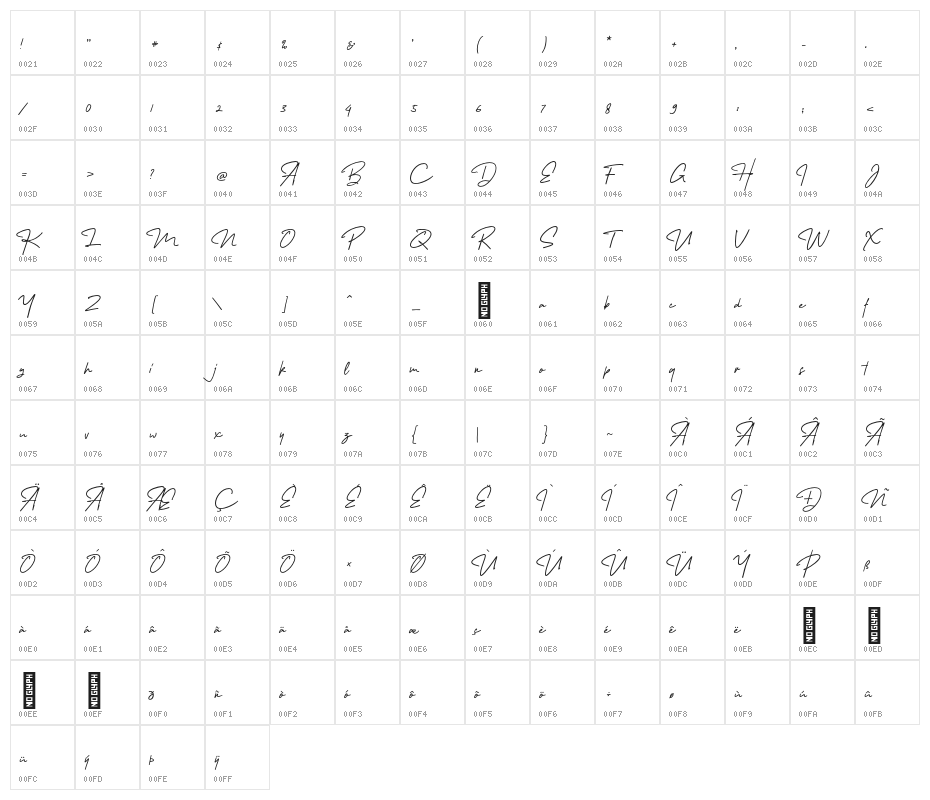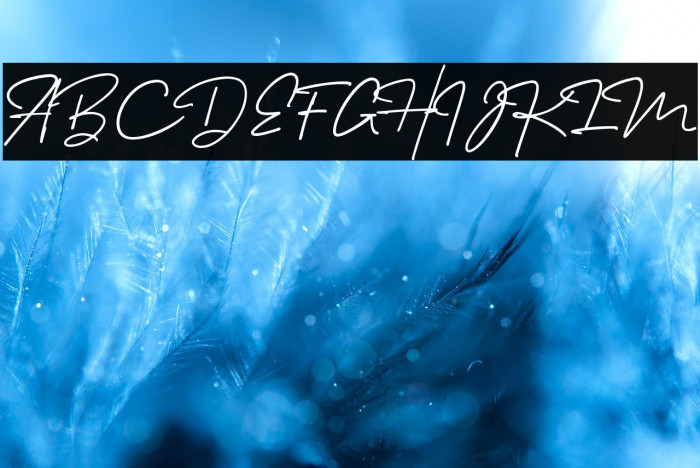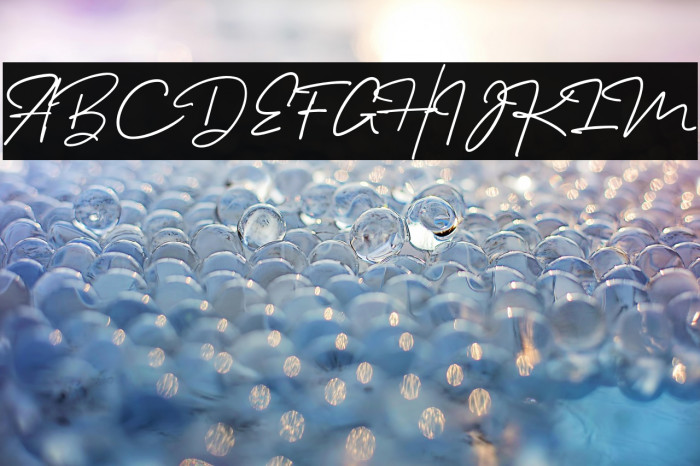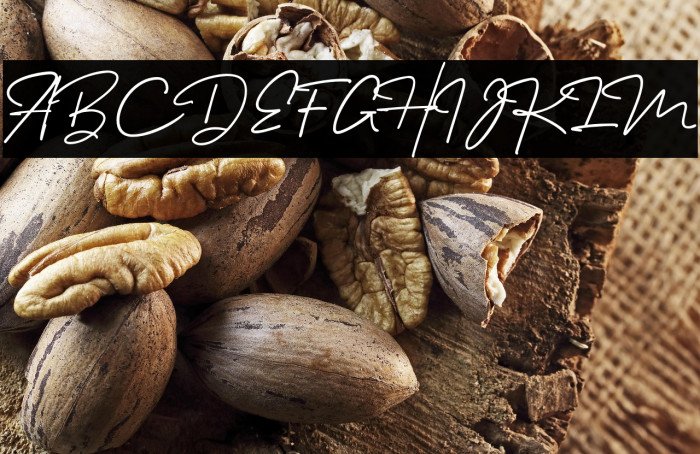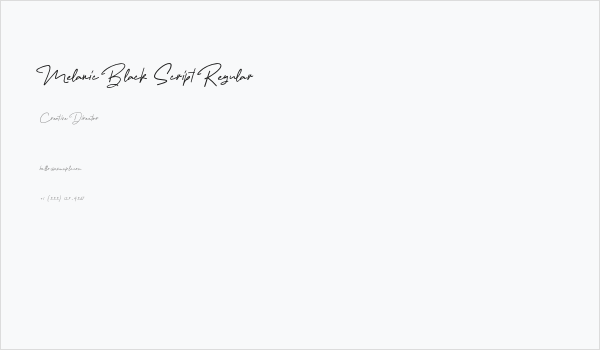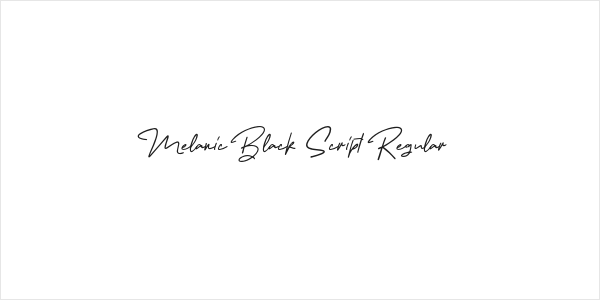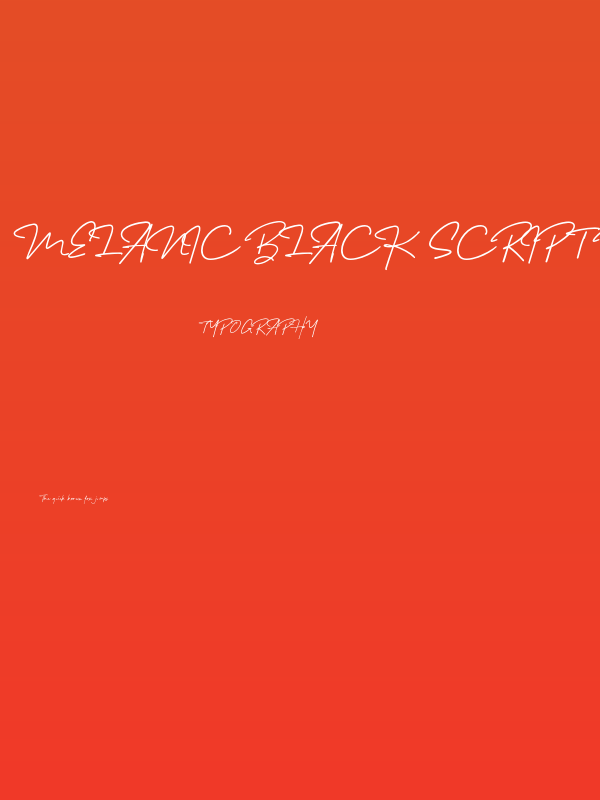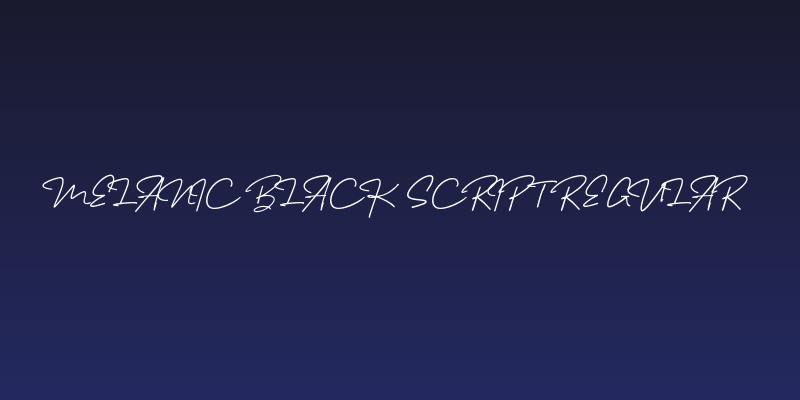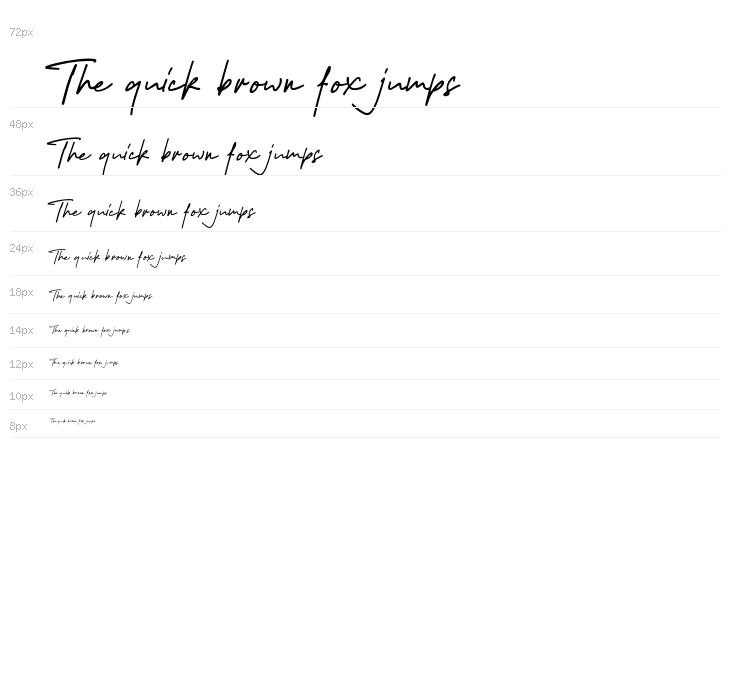
Melanic Black Script Regular Font
Melanic Black Script Regular Description
This font features a fluid, handwritten style with elegant, flowing strokes that mimic natural handwriting. The uppercase letters are bold and slightly slanted, giving a dynamic and energetic feel. The lowercase letters maintain a consistent style, with smooth curves and a casual, yet sophisticated appearance. Numbers and special characters are designed to complement the letters, maintaining the same fluidity and style. The overall look is modern and stylish, suitable for projects that require a personal touch.